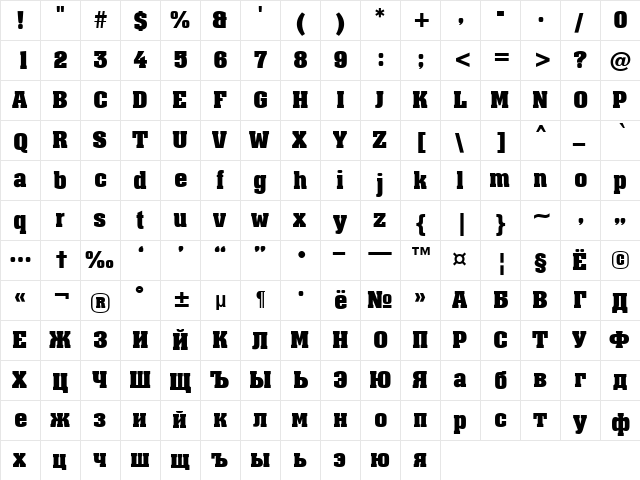
a_Assuan Bold
Design Context for a_Assuan Typeface
a_Assuan takes a measured approach to typography — its balanced proportions and neutral character make it a reliable workhorse for both digital and print work. The heavy weight commands attention and anchors typographic hierarchies.